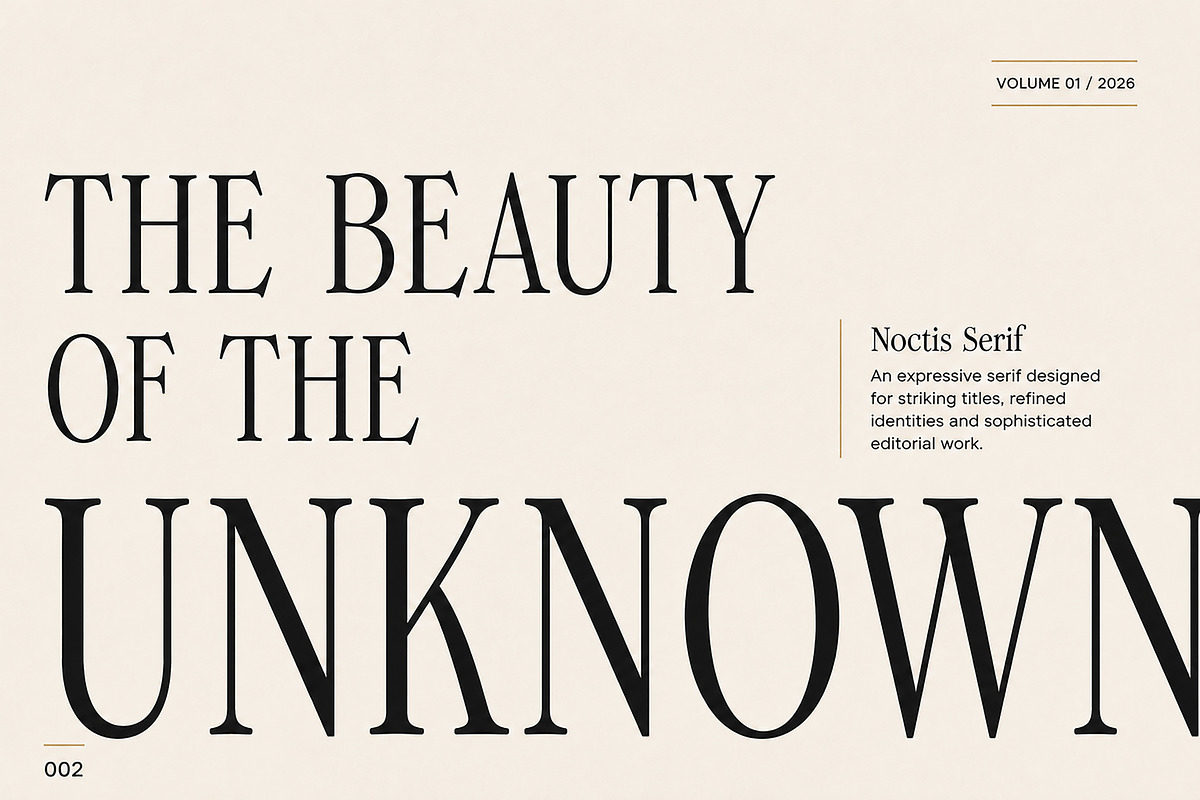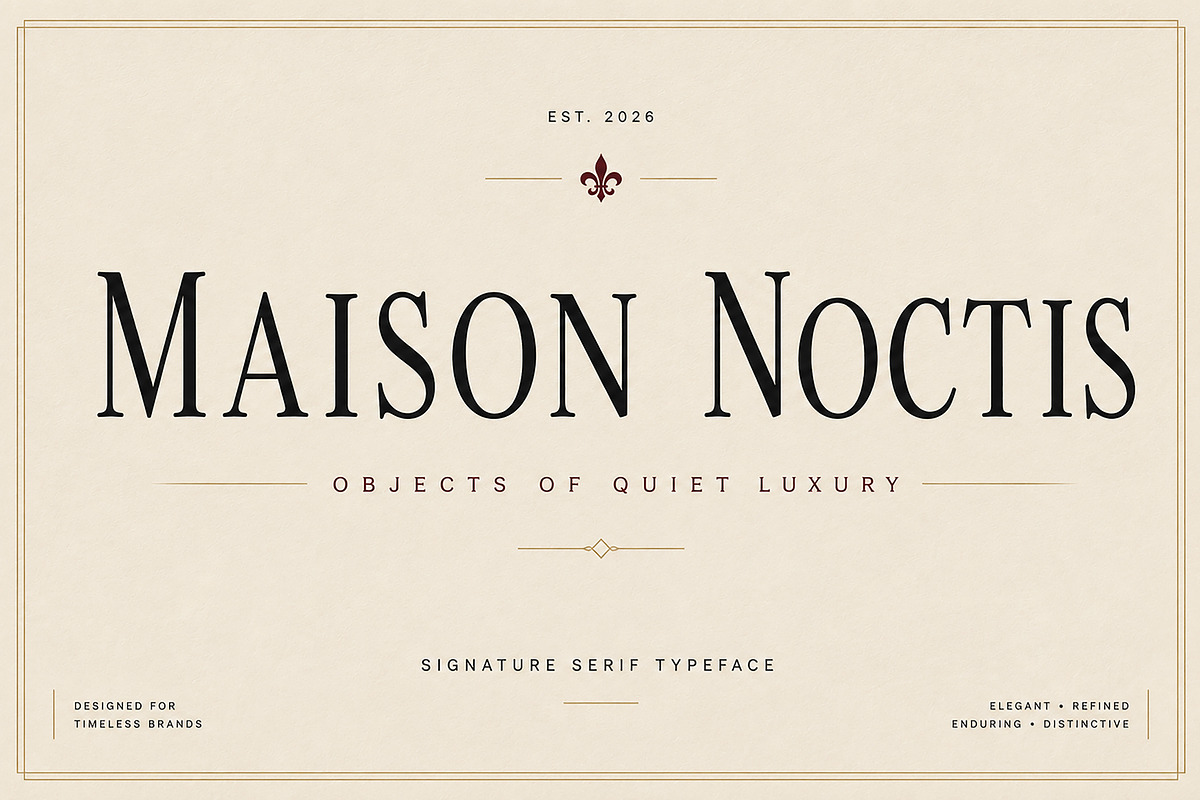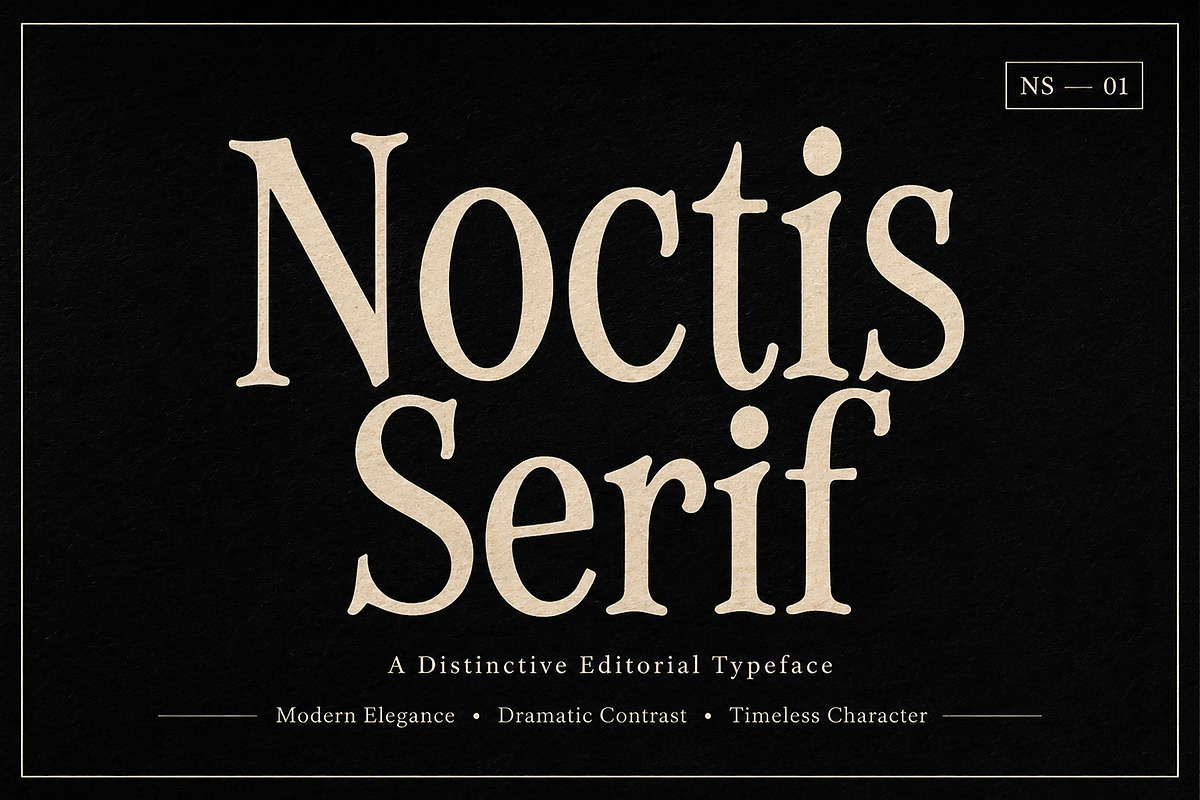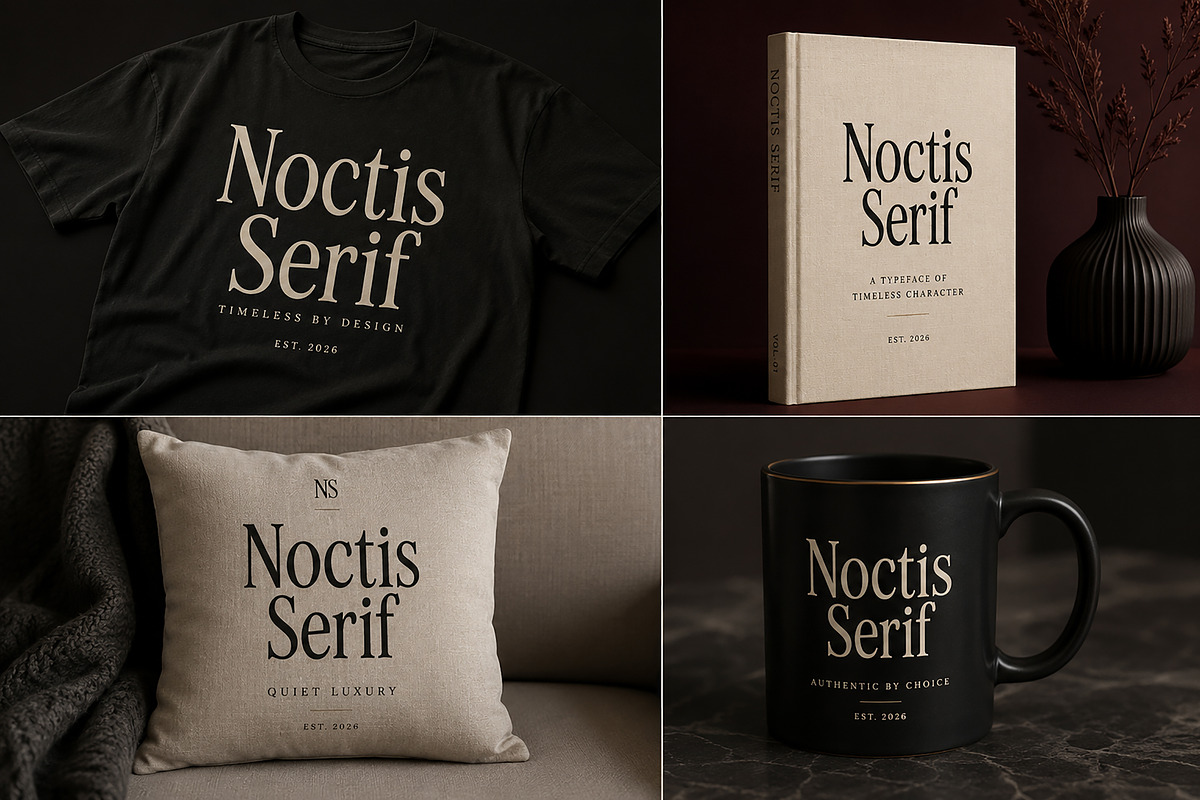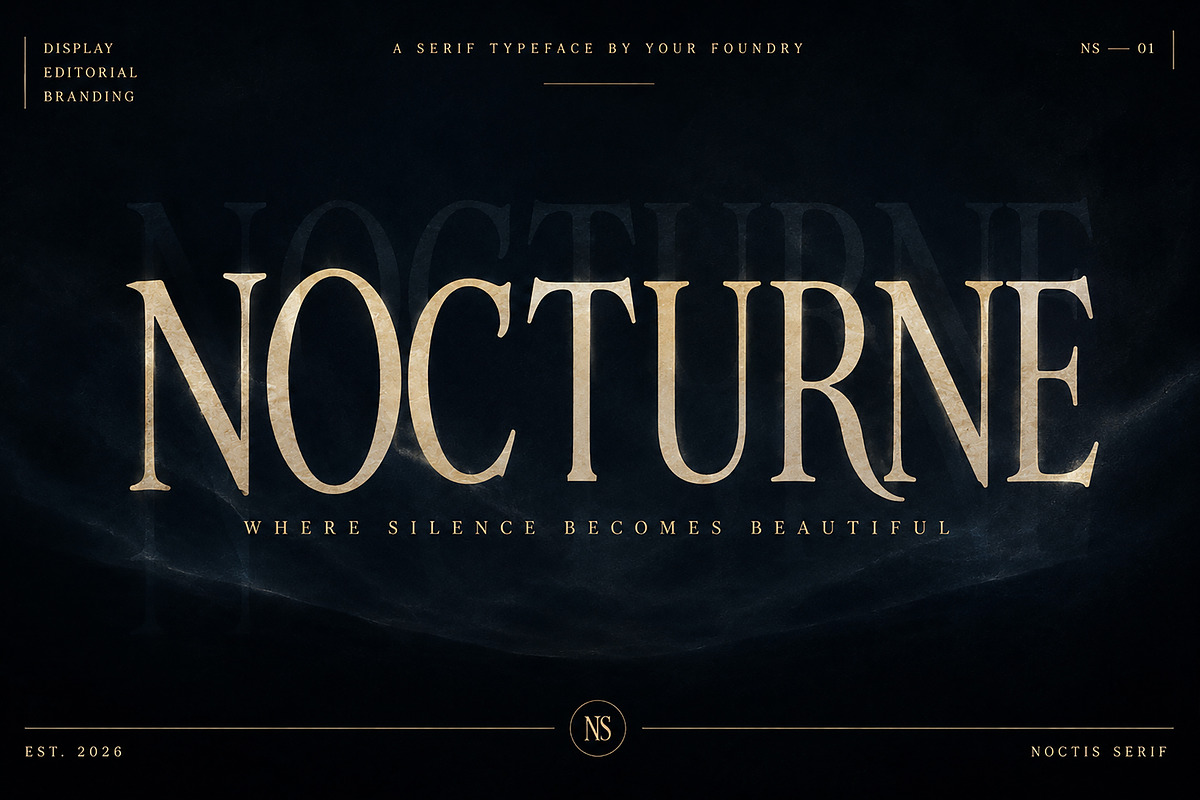
Noctis Serif
Noctis Serif is a refined display serif typeface crafted for elegant, high-end visual identities. With graceful curves, expressive letterforms, and timeless proportions, it brings a sophisticated editorial feel to every design. Whether you're creating luxury branding, fashion campaigns, premium packaging, magazine headlines, book covers, or cinematic posters, Noctis Serif delivers striking presence with effortless elegance.
Designed with a balance of classic inspiration and modern aesthetics, this typeface is perfect for designers who want to create memorable, premium-quality typography.
Luxury Branding
Fashion Editorials
Magazine Headlines
Beauty & Cosmetic Branding
Perfume Packaging
Hotel & Restaurant Branding
Wedding Stationery
Posters
Album Covers
High-End Advertising
Website Hero Titles
Elegant Display Serif Typeface
Modern Editorial Style
High Contrast Letterforms
Premium Luxury Aesthetic
Clean & Professional Design